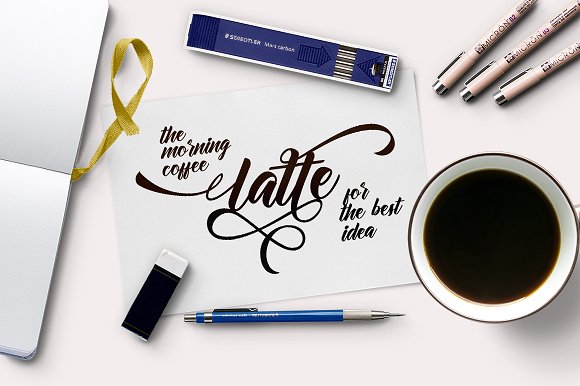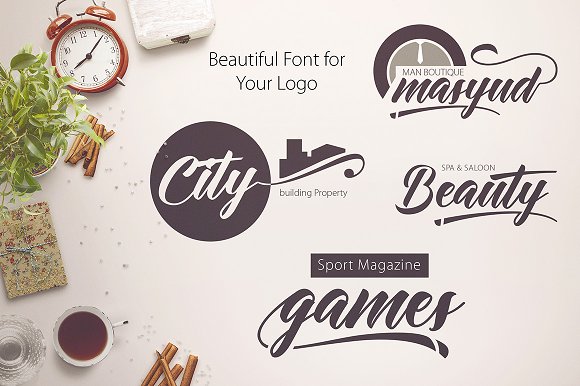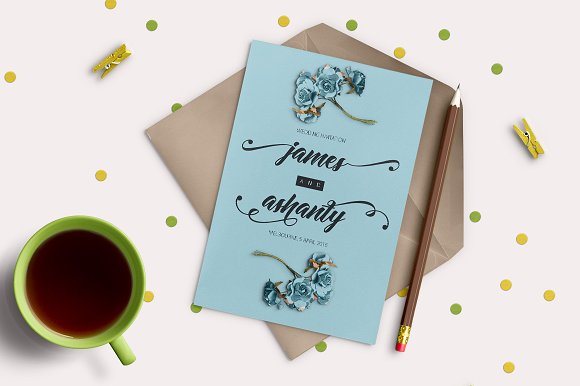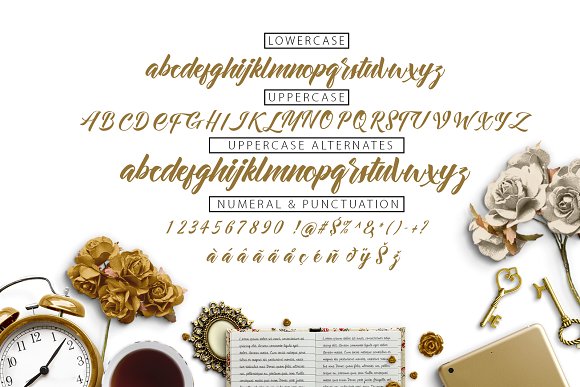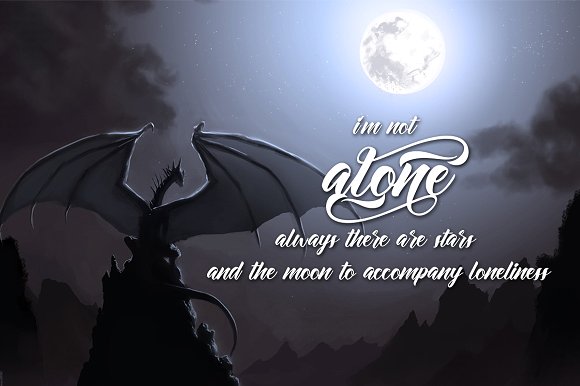
Discover the Magic of Allita Font
Have you ever been stuck in a creative rut, staring at a blank page or screen, trying to conjure up the perfect font to match your vision? It’s a feeling we’ve all been there, and it’s where the search for the perfect font begins.
Enter Allita, a beautiful handwritten script that’s been designed to bring your creative projects to life. This fluid font is perfect for a wide range of applications, from marketing and branding to craft projects. With its professional yet approachable feel, Allita Font is the perfect choice for designers looking to add a touch of elegance and sophistication to their work.
Whether you’re a seasoned designer or just starting out, Allita Font is a valuable tool in your creative arsenal. Its ease of use and versatility make it an ideal choice for any project, and its beautiful, handwritten feel is sure to leave a lasting impression.
Allita Font Key Features
- Unique Characteristic: Allita Font features a unique blend of modern and elegant typography, making it suitable for high-end branding, luxury goods, and premium products.
- Language Support: The font supports multiple languages, including Latin, Cyrillic, and Greek scripts, making it a versatile choice for global branding and marketing efforts.
- Font Metrics: The font’s x-height and cap height are carefully designed to ensure readability and aesthetic appeal in various font sizes and line heights.
Allita Font Review
As a designer, I’ve had the chance to work with a wide range of fonts, and Allita Font is one of them. Here’s my honest review.
- Unique and elegant design: Allita Font has a distinct, flowing style that sets it apart from more common fonts.
- Legibility: It’s surprisingly readable, even at smaller sizes.
- Expressive: The font’s flair and personality make it perfect for creative projects.
- Limited font weights: Allita Font is mainly available in one weight, which may limit its versatility.
- Not suitable for body text: Due to its unique style, Allita Font may not be the best choice for large blocks of text.
- Lack of language support: Some languages may not be supported, which could limit its use.
Overall, I think Allita Font is a great addition to any designer’s toolkit. While it has some limitations, its unique design and legibility make it perfect for creative projects and titles. It’s a great choice for anyone looking to add some flair to their work.
Getting the Most Out of Allita Font
For best results, use Allita Font in conjunction with elegant, cursive-style designs. Experiment with different font sizes and colors to achieve a unique look.
Allita Font is ideal for:
- Handwritten-style quotes and captions
- Artistic and creative projects
Alternatives to Allita Font
The Great Vibes Font is a beautiful, handwritten font perfect for adding a touch of elegance to any design. It’s ideal for creating invitations, greeting cards, and other special occasion designs. Great Vibes Font has a similar playful feel to Allita Font but with a more refined and sophisticated look.
Comparison: Great Vibes Font is more formal and polished compared to Allita Font, making it suitable for high-end designs and formal events.
Alex Brush Font is a elegant, handwritten script font that’s perfect for creating a romantic and whimsical atmosphere in designs. It’s ideal for use in wedding invitations, greeting cards, and other special occasion designs. Alex Brush Font has a similar flowing feel to Allita Font but with a more delicate and refined touch.